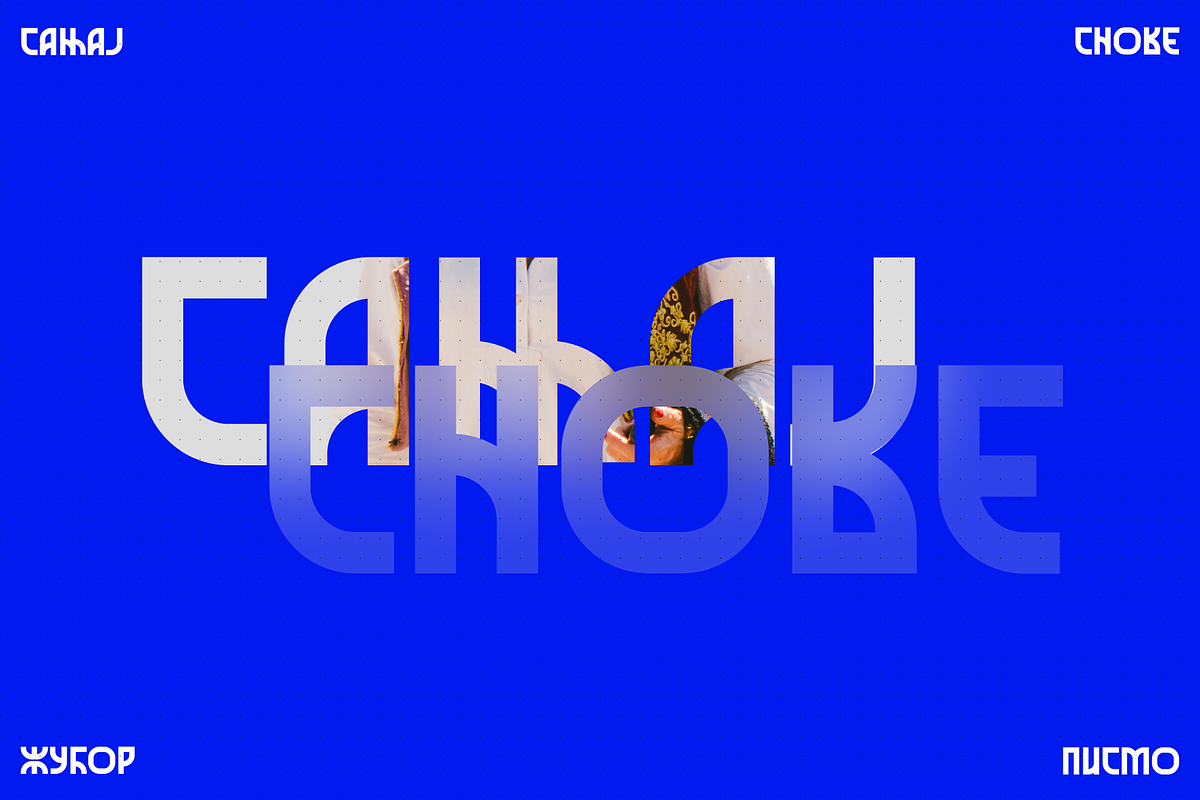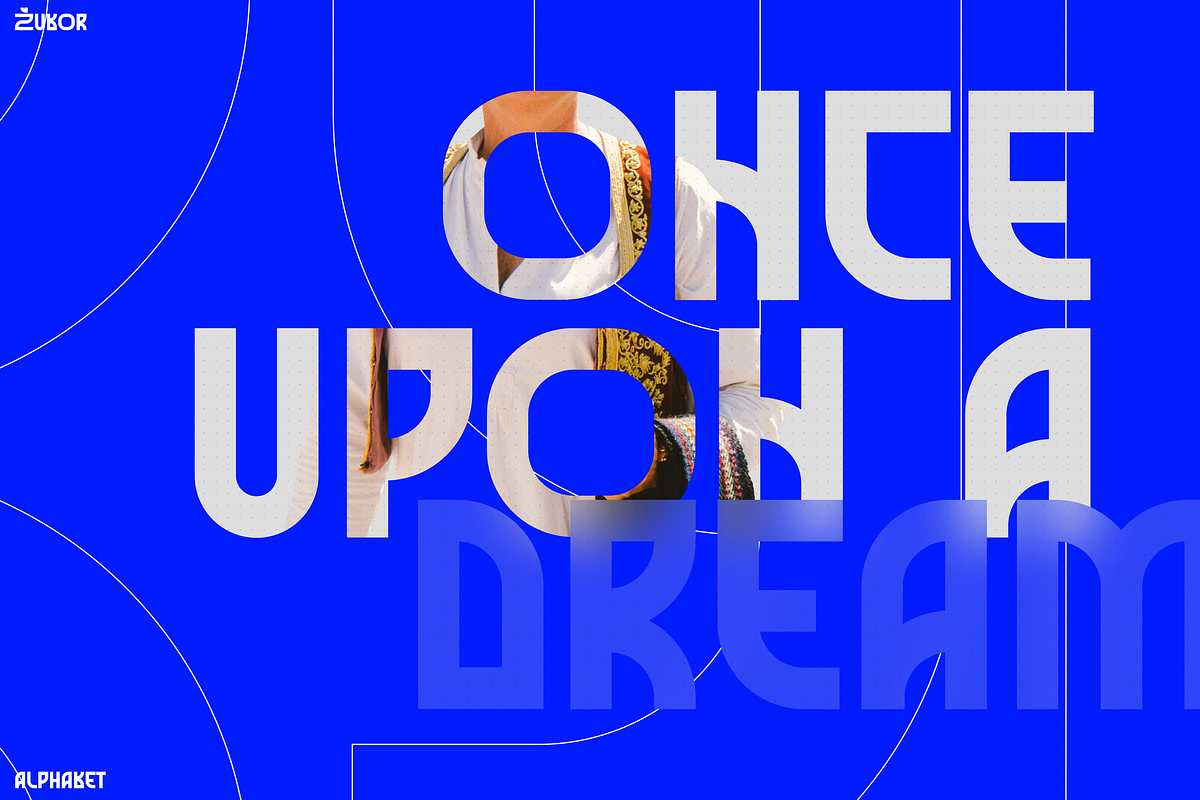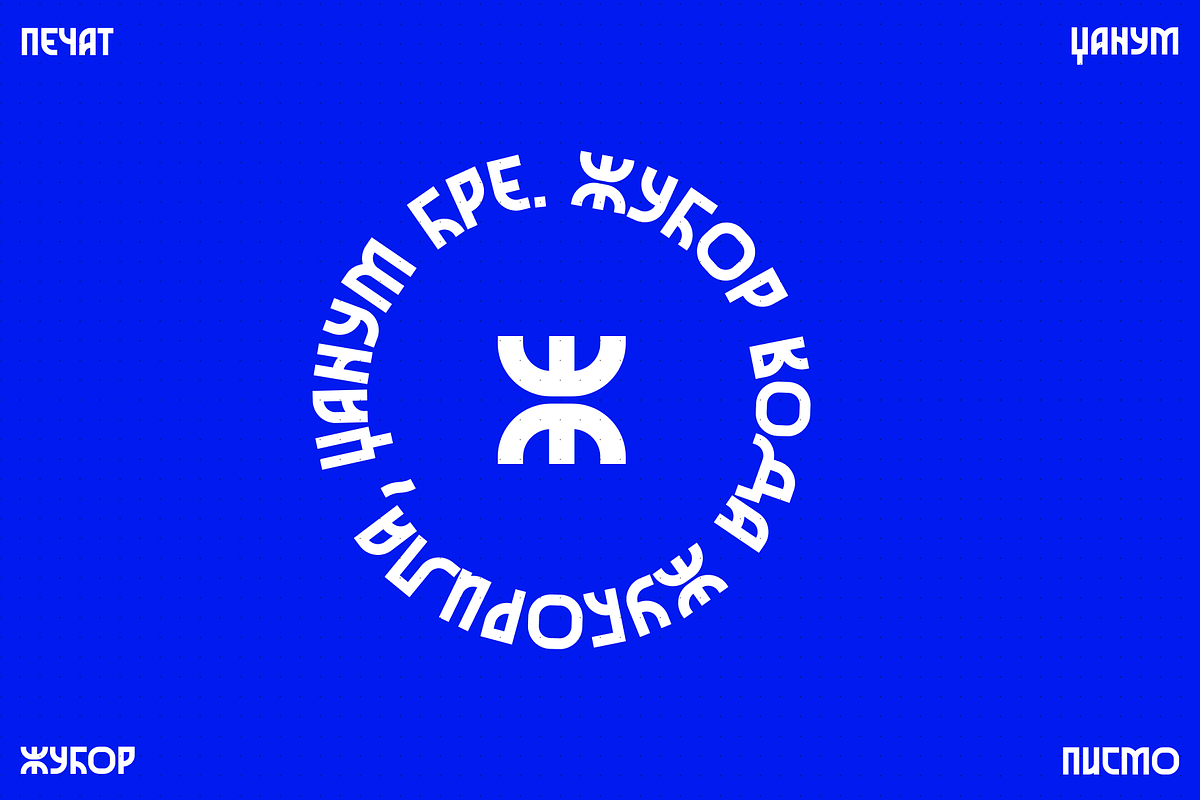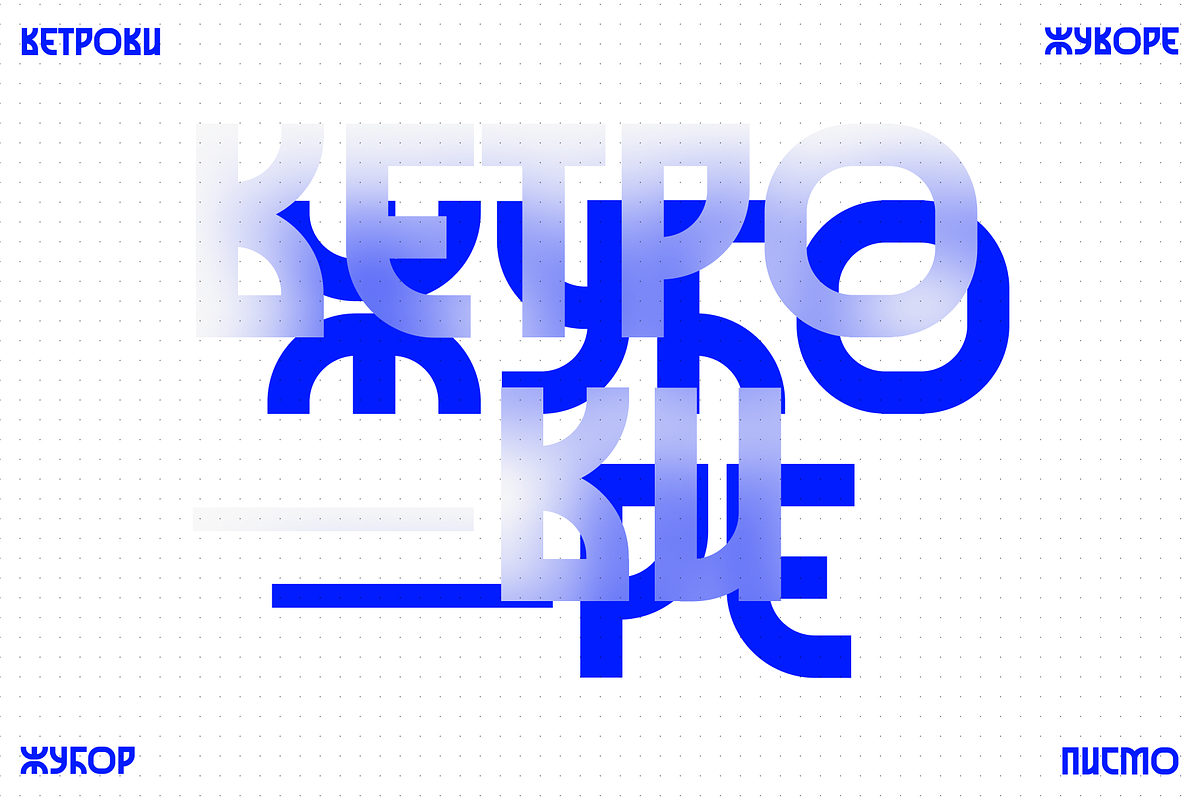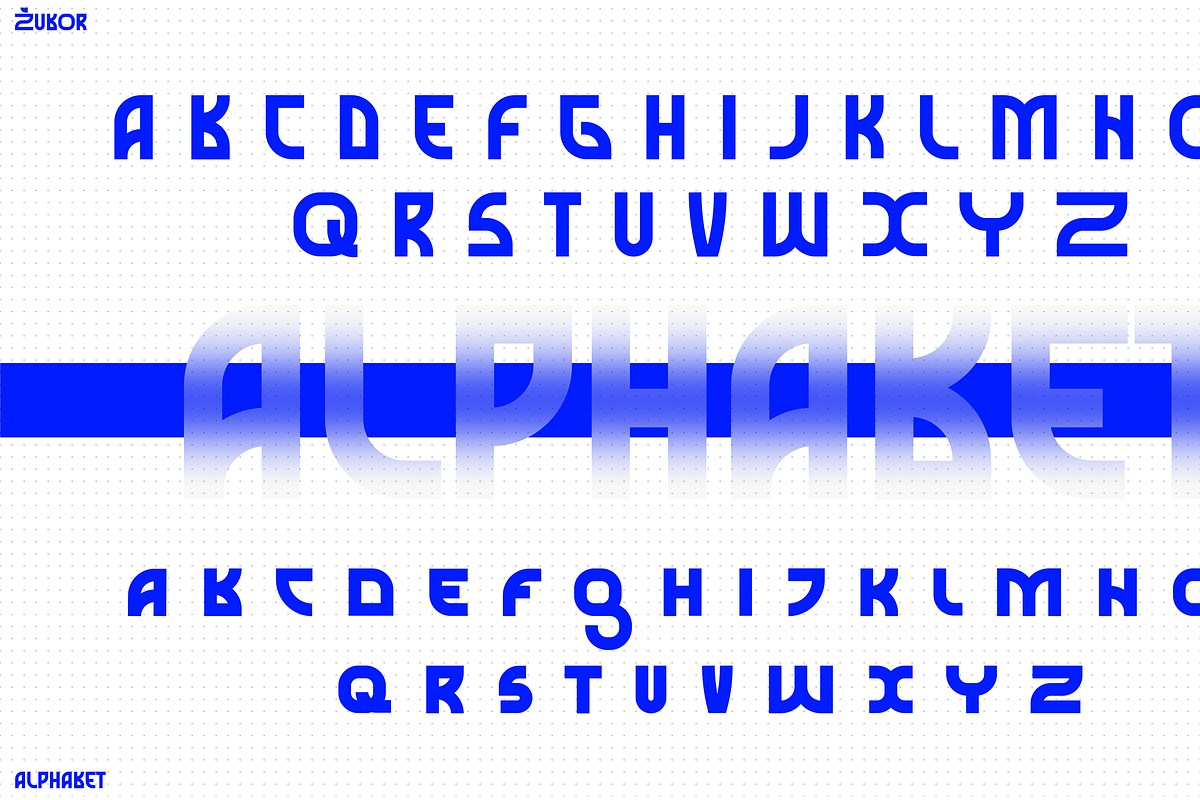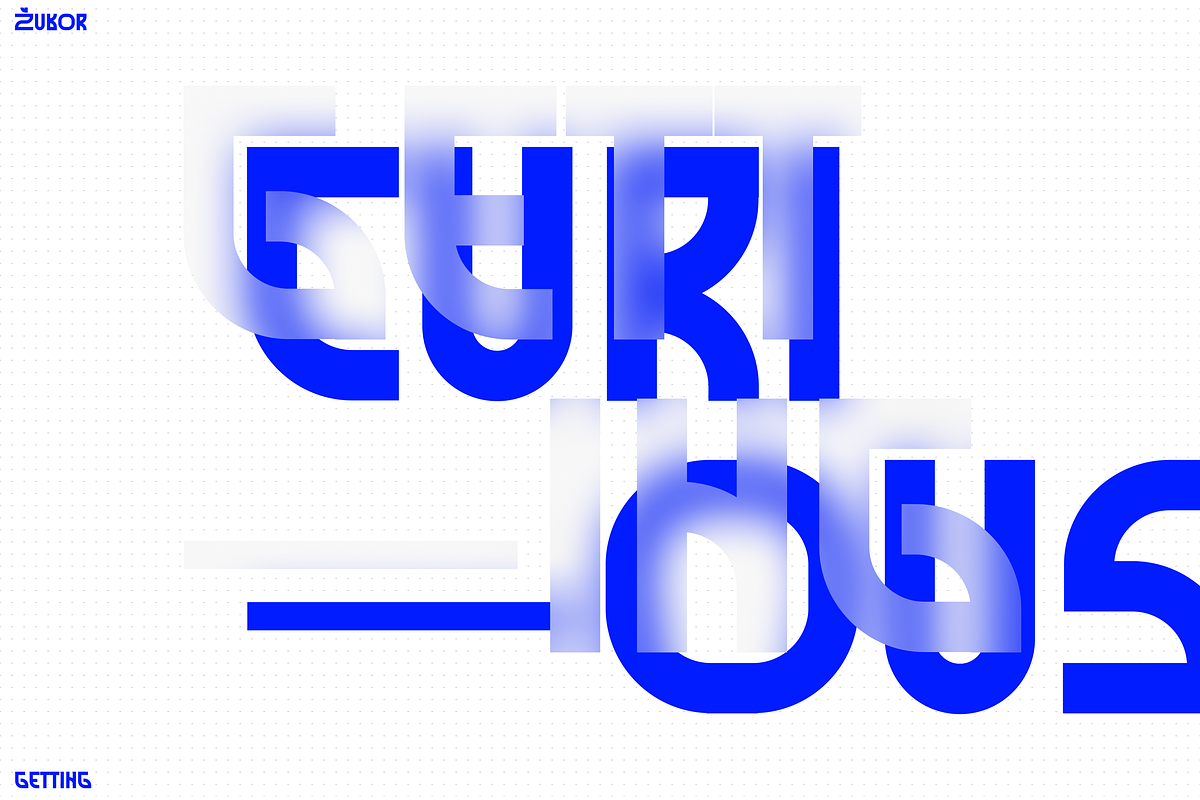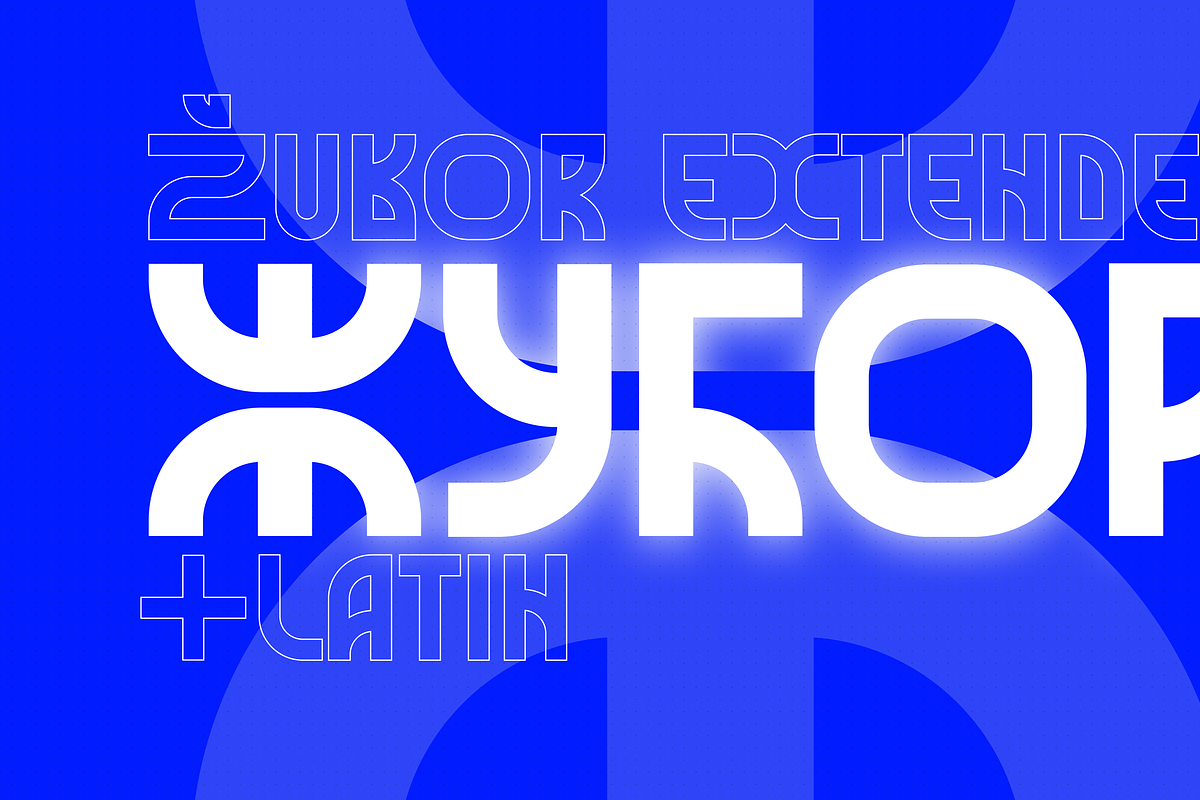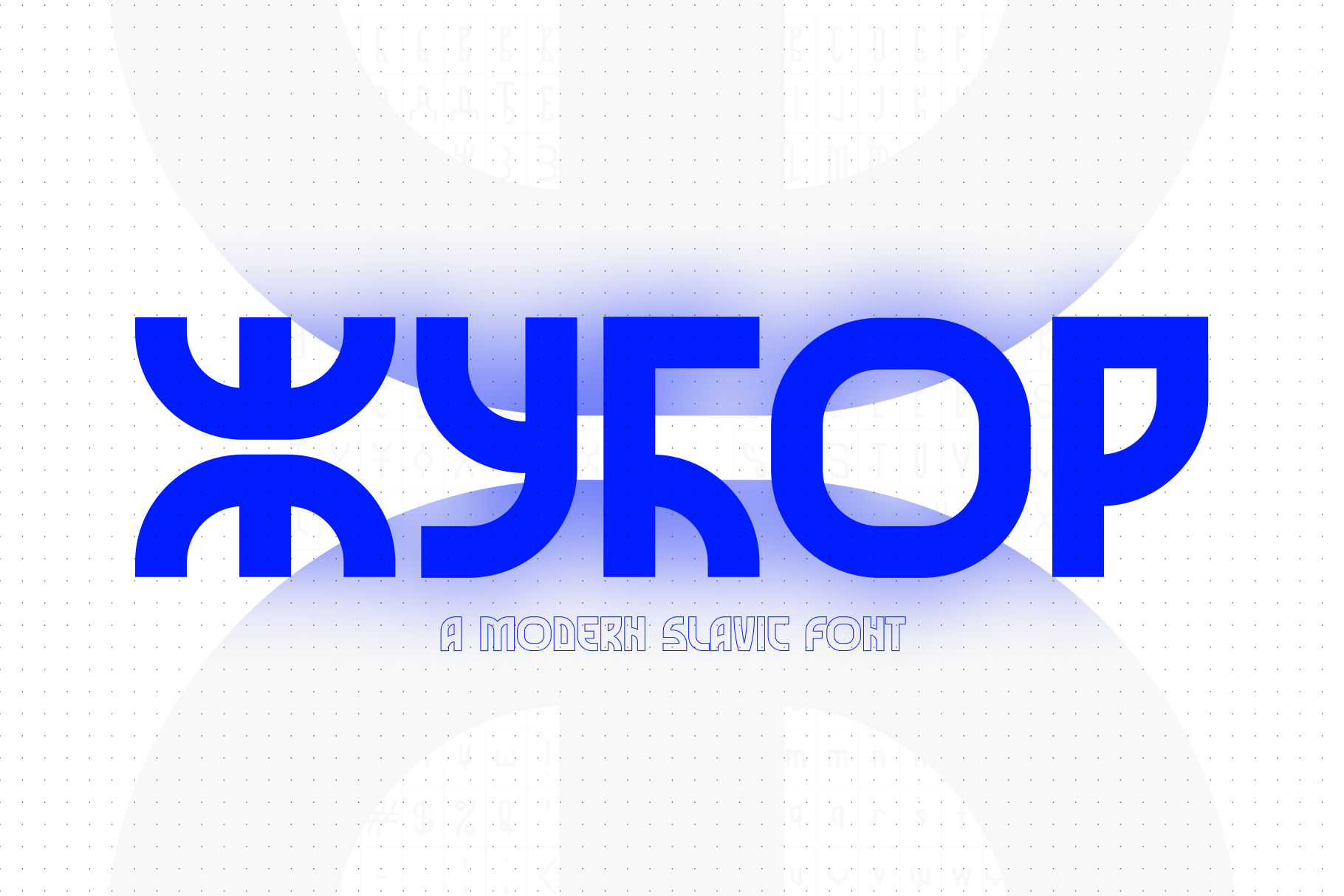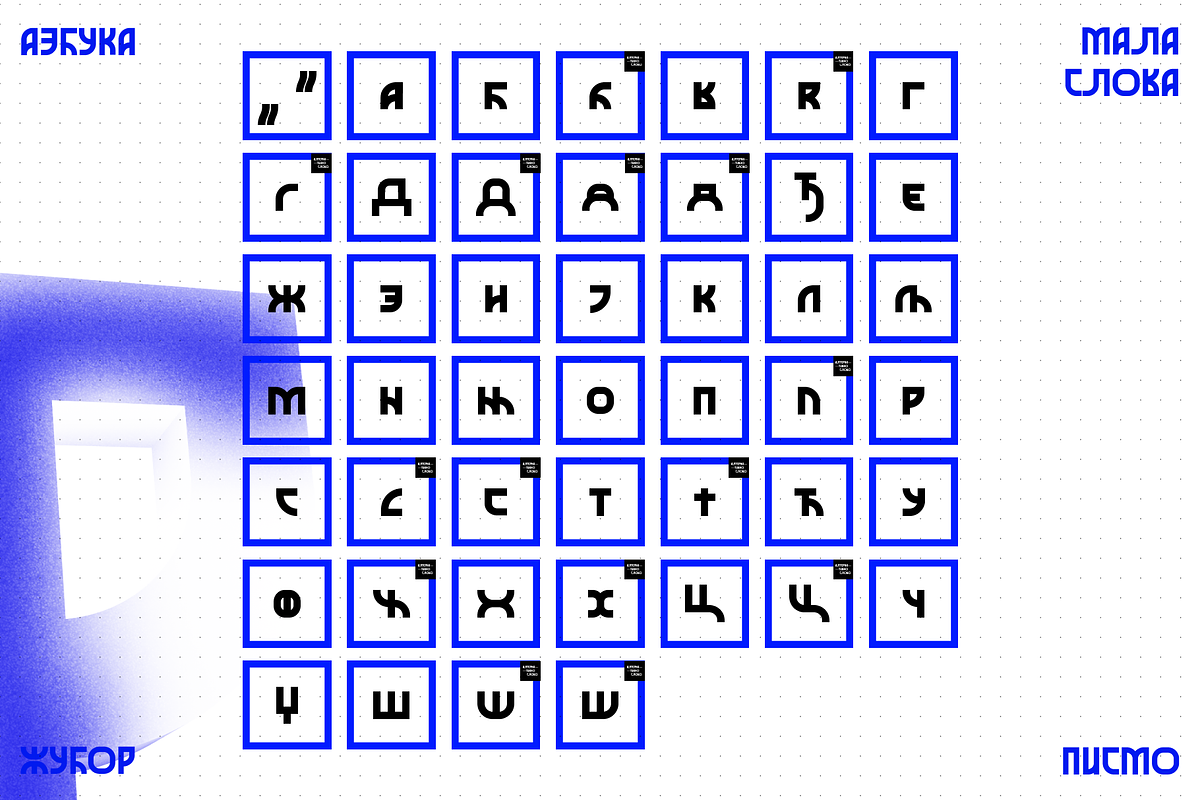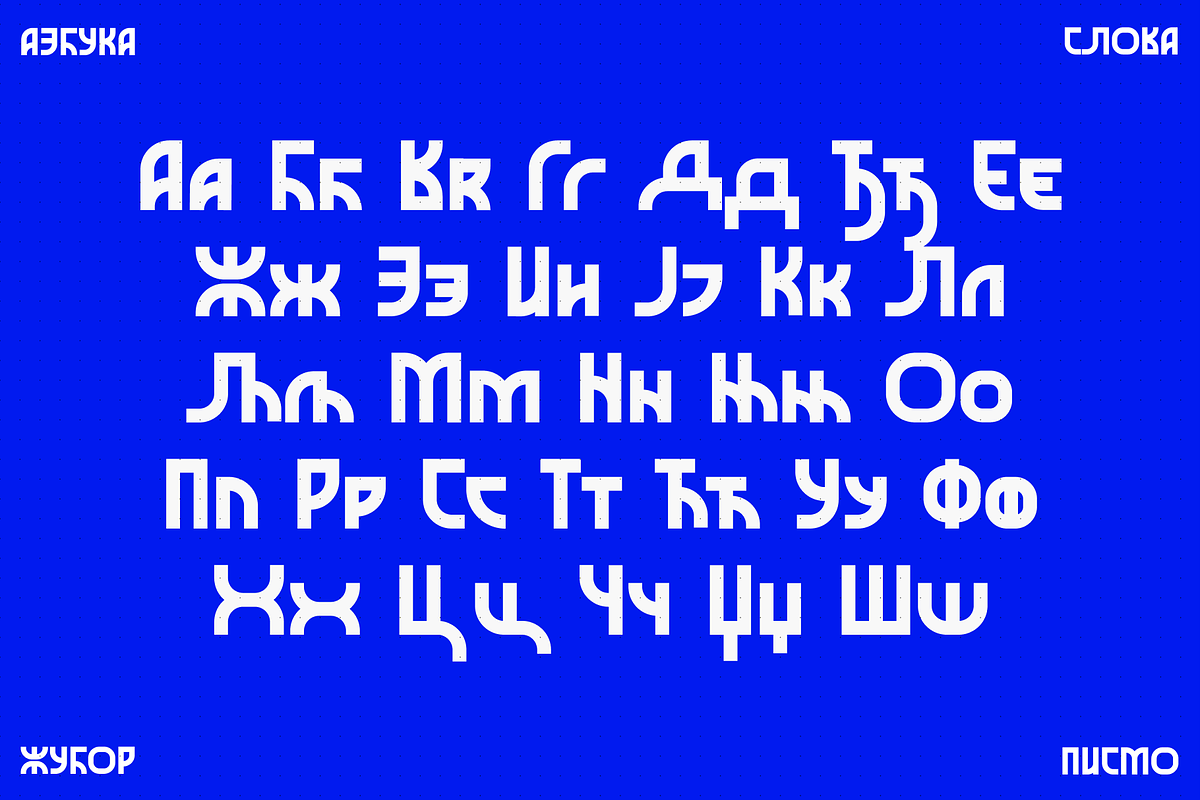
Žubor - a modern slavic font
Жубор (Žubor) is a Cyrillic font made for the Serbian language that covers Latin characters as well. It is created from a need for a modern and a bit futuristic-looking font. It was fun to see how certain letters can be cut and sliced to get a minimal, but still fully legible form.